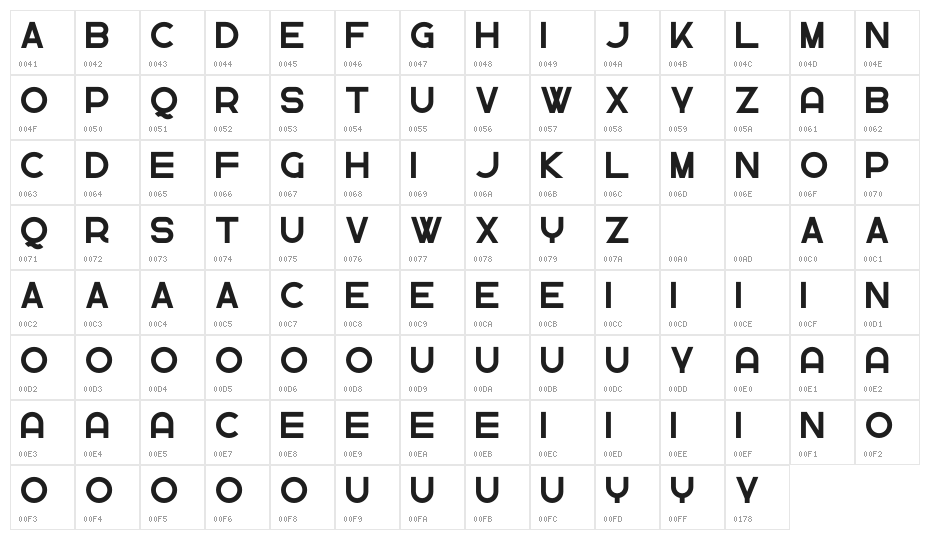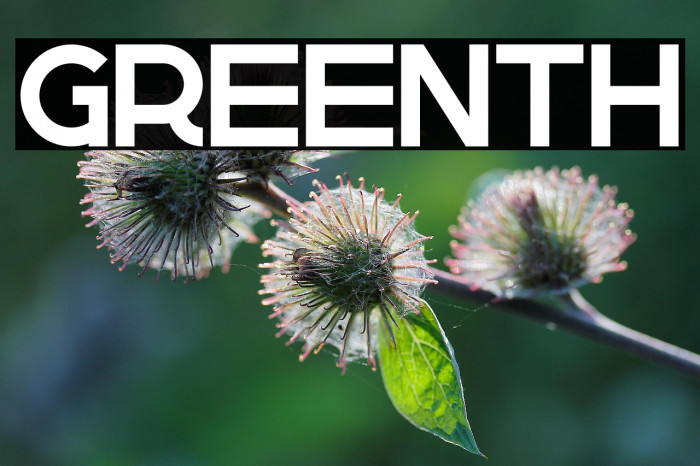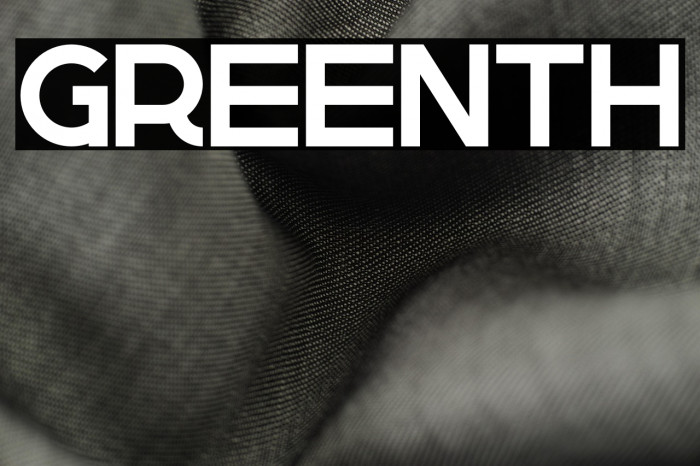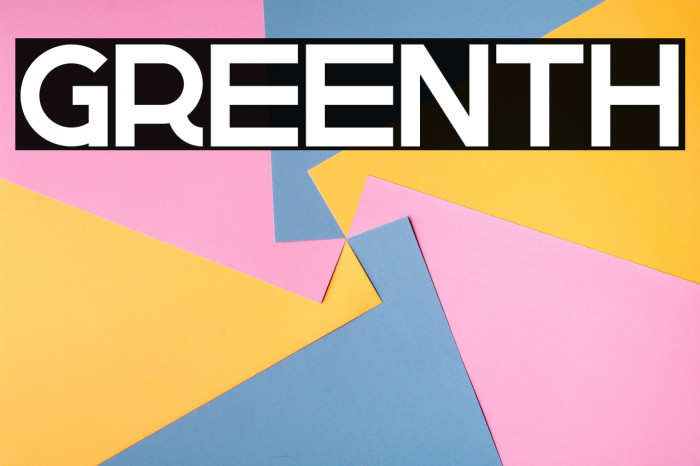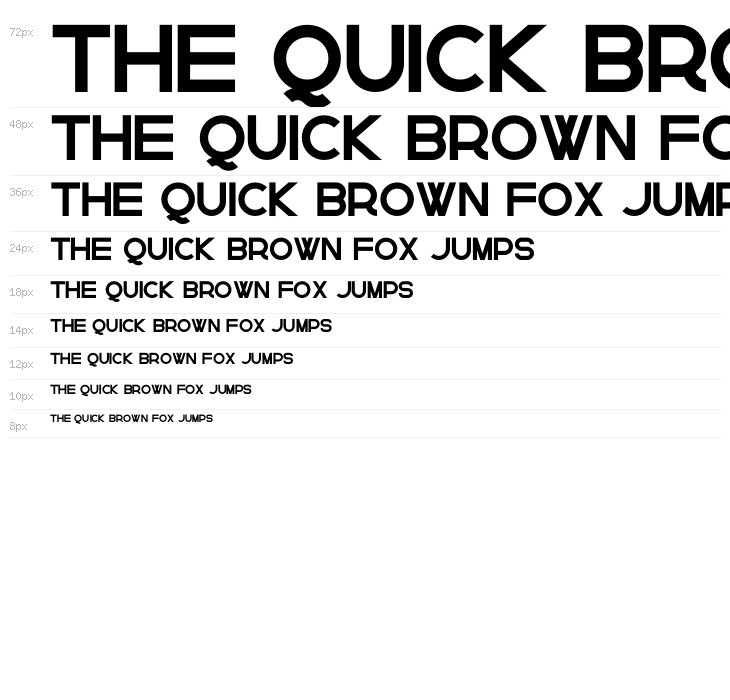
Greenth Font
Greenth Description
This font features a bold, geometric style with clean, straight lines and sharp angles. The uppercase letters are uniform in height and width, creating a sense of balance and stability. The design is modern and minimalistic, with a focus on simplicity and clarity. The absence of serifs gives it a contemporary feel, making it suitable for a variety of digital and print applications. The characters are evenly spaced, ensuring readability and a professional appearance. This font is ideal for projects that require a strong, impactful visual presence.
| Use Case | Headlines, Logos, Branding |
| Proposed Projects | Ideal for branding, advertising, digital media, and editorial design. |